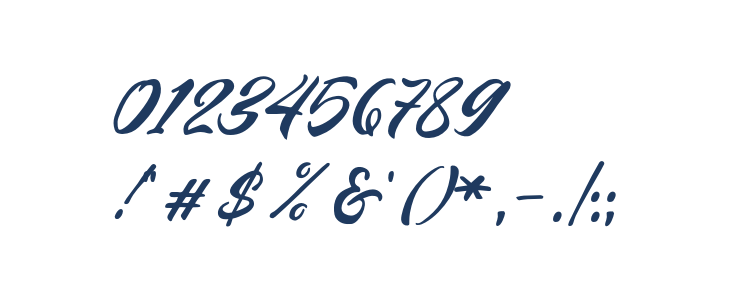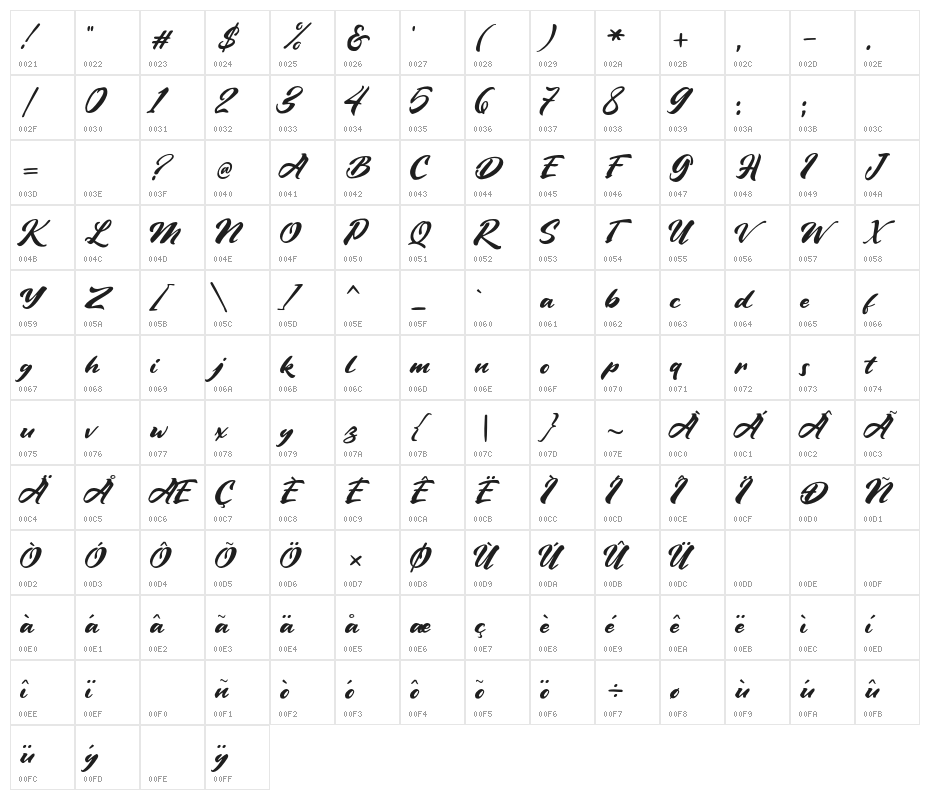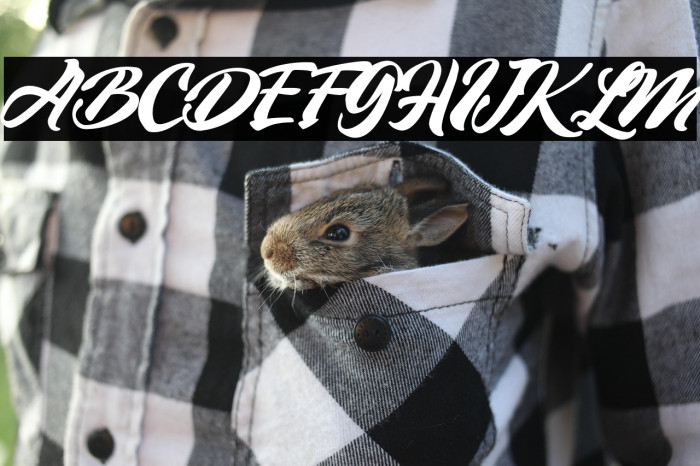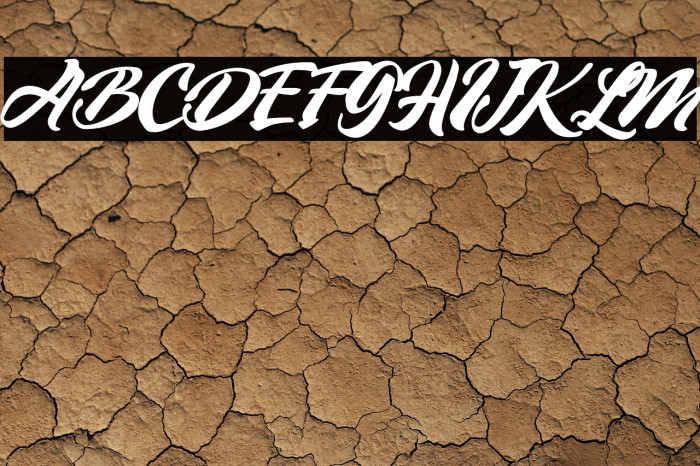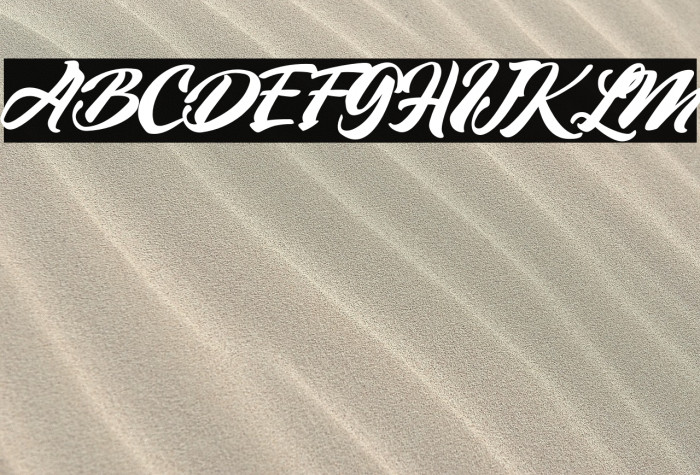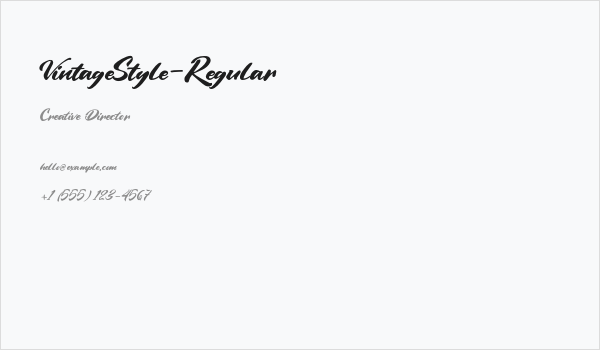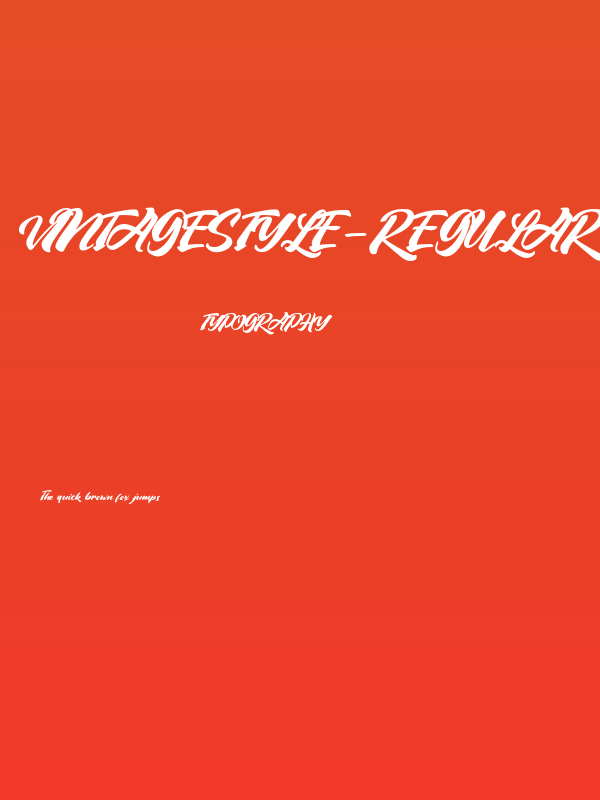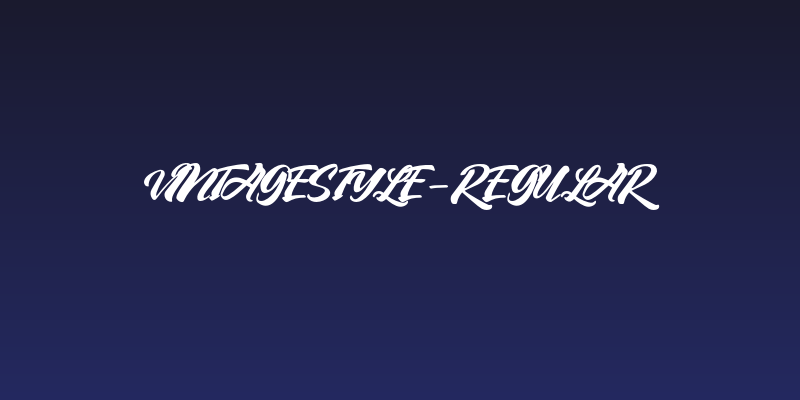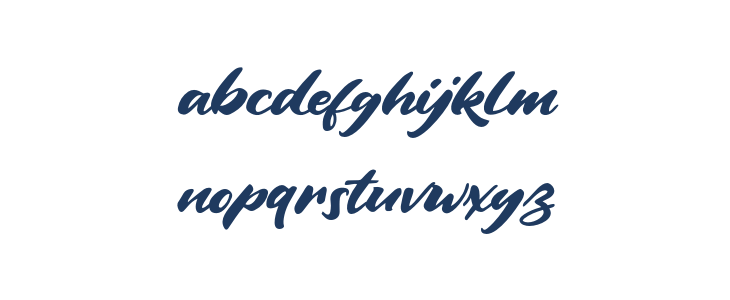
VintageStyle-Regular Font
VintageStyle-Regular Description
This font exudes a classic and elegant style, reminiscent of vintage calligraphy. The characters are bold and fluid, with a distinct slant that adds a sense of motion and grace. The uppercase letters are particularly ornate, featuring sweeping curves and flourishes that give them a dramatic flair. The lowercase letters maintain a consistent style, with smooth transitions and rounded edges. Numbers and special characters are designed to match the overall aesthetic, ensuring a cohesive look across all text. The font's high contrast between thick and thin strokes enhances its readability while maintaining its decorative appeal.